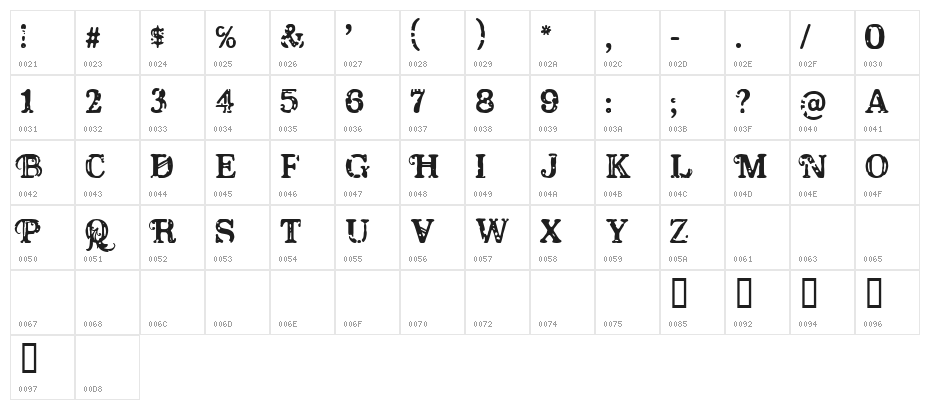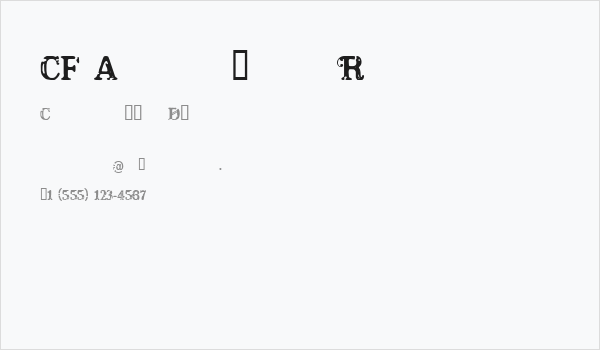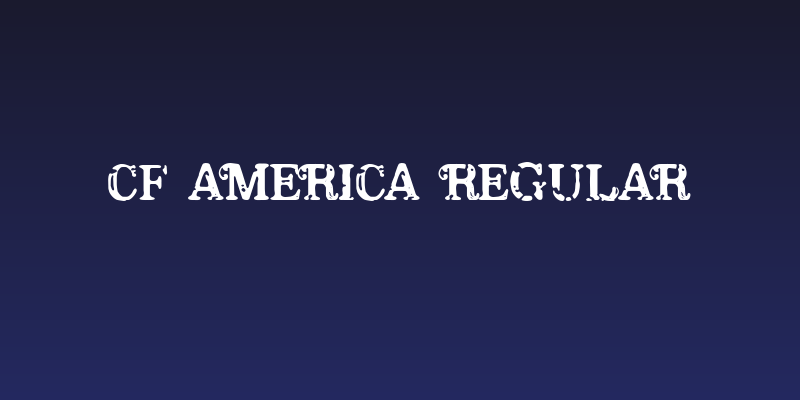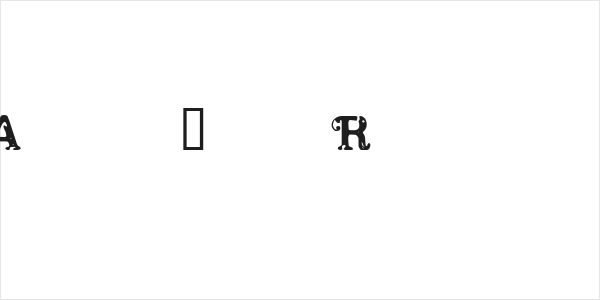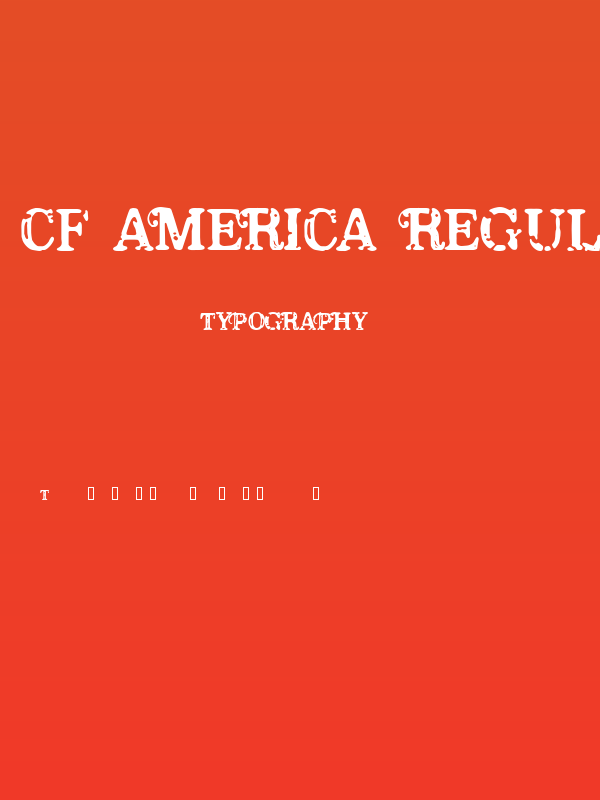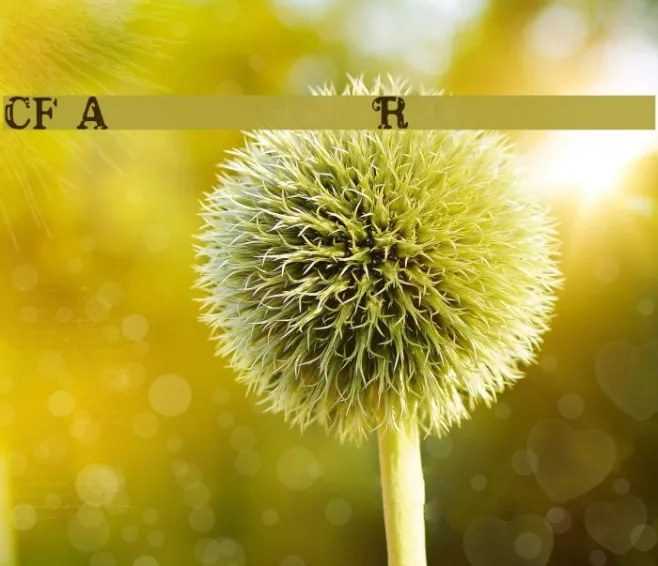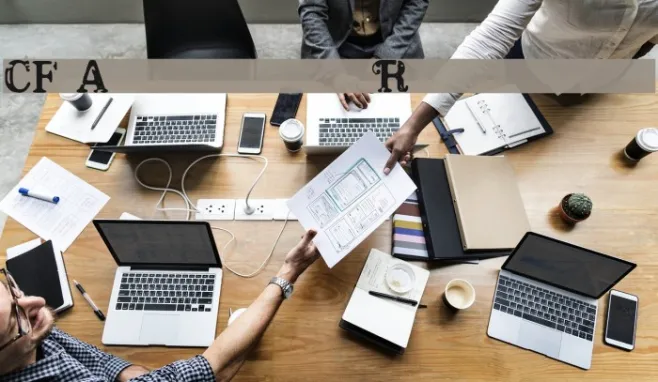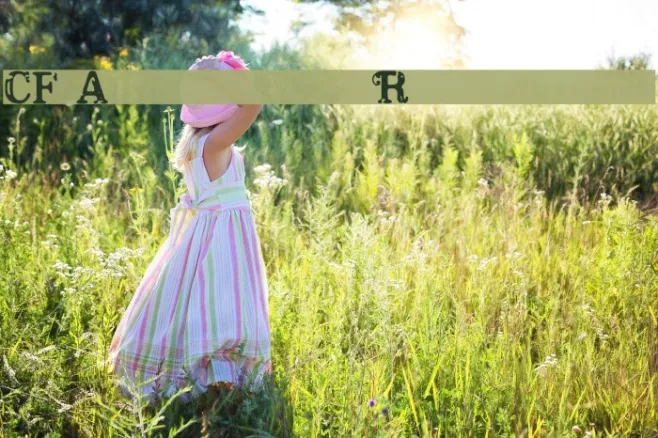
CF America Regular Font
CF America Regular Description
This font features a bold and decorative style with a distressed, grunge effect. The uppercase letters are prominent, with intricate detailing that gives a vintage and rugged appearance. The numbers and special characters maintain this aesthetic, making them stand out with their bold presence. The font's unique style is characterized by its uneven edges and artistic flair, which adds a touch of creativity and personality to any design. This font is ideal for projects that require a strong visual impact and a sense of nostalgia or edginess.
| Overall Style | Vintage, Decorative |
| Proposed Projects | Ideal for posters, album covers, branding, and any design needing a bold, vintage look. |